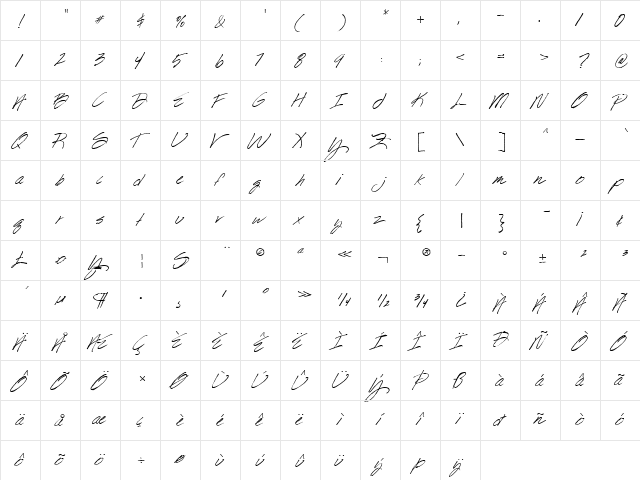
SU Steele Script Regular
Design Context for SU Steele Script Typeface
SU Steele Script flows with the natural rhythm of handwritten lettering, making it ideal for designs that call for warmth and personal expression.
Font Pairing: Combine SU Steele Script with a simple geometric sans for maximum contrast — the tension between flowing curves and clean structure is a classic typographic pairing.
Pro Tip: Use SU Steele Script for short runs of text — names, titles, or taglines. Extended body copy in script faces tires the eye quickly.